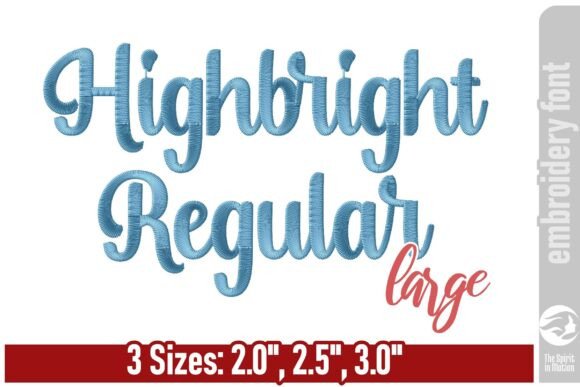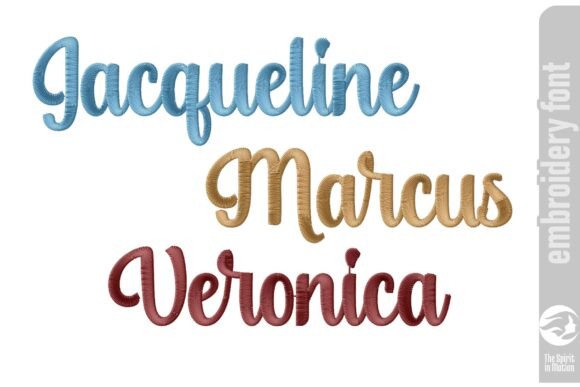
Highbright Script Embroidery Font – L
Add a stylish and modern flair to your embroidery projects with this sleek script font. Perfect for personalizing clothing, accessories, or home décor, its flowing script design adds elegance and charm to monograms, quotes, and decorative details. The listed sizes refer to the approximate height of uppercase letters, though adjustments may be needed depending on your specific project and machine settings.